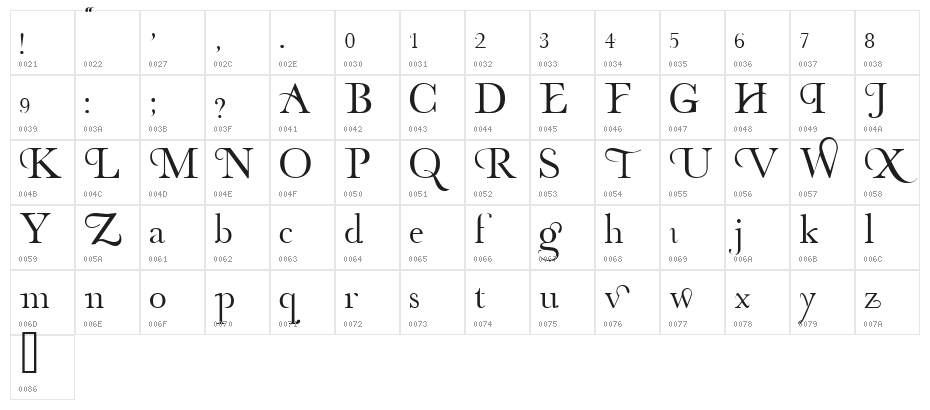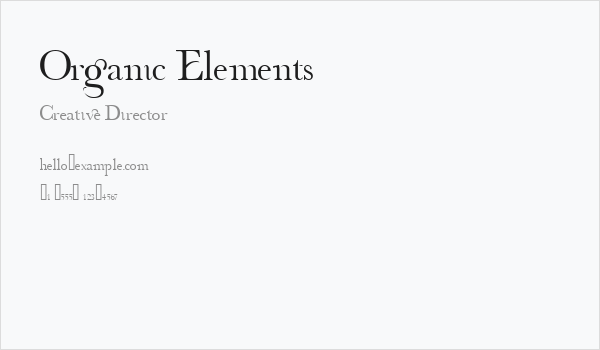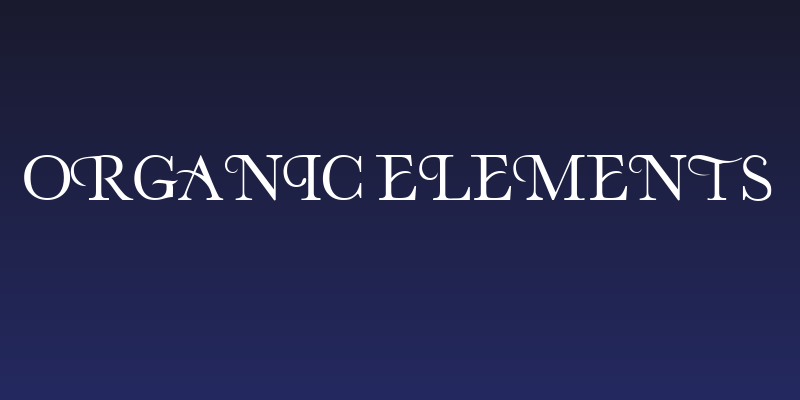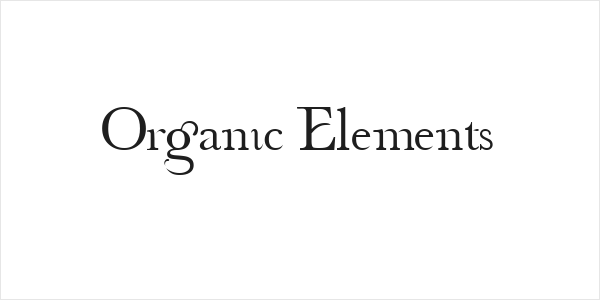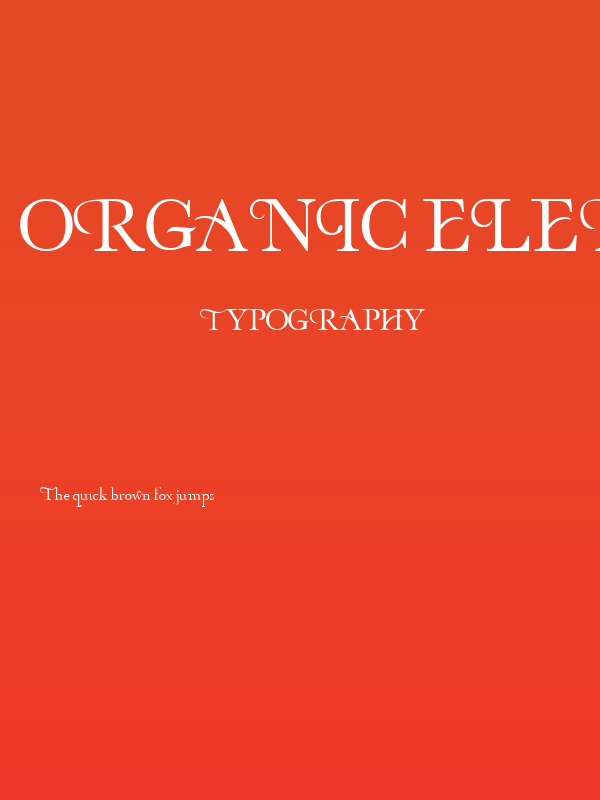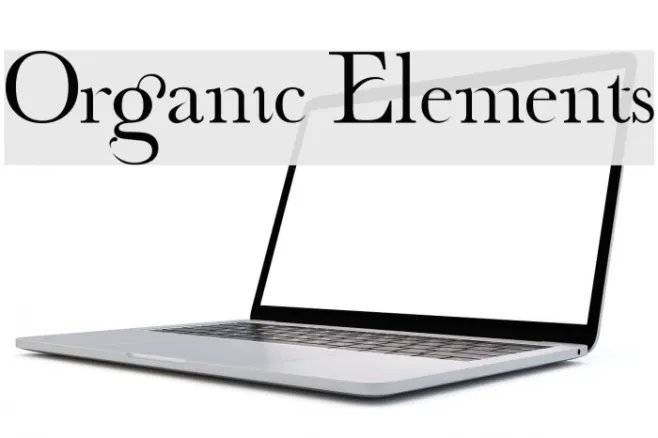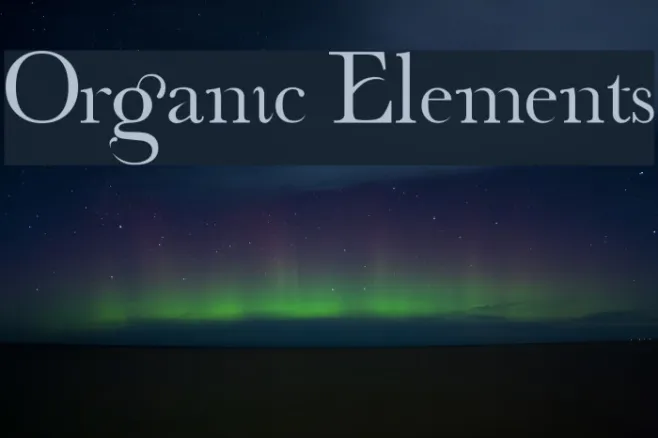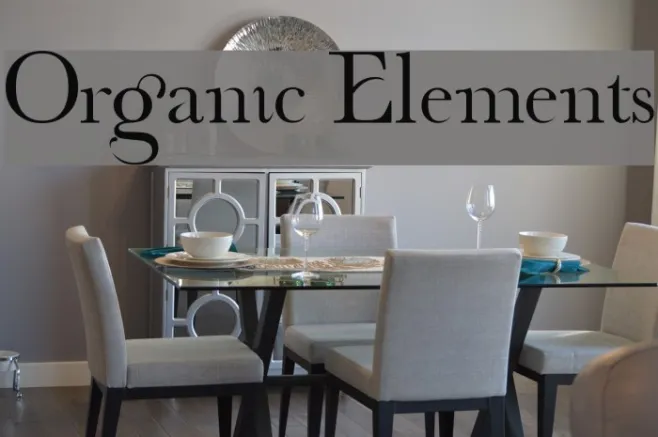
Organic Elements Font
Organic Elements Description
This font features a distinctive blend of elegance and modernity, characterized by its unique organic elements. The uppercase letters exhibit a classic serif style with subtle curves and flares, giving them a sophisticated appearance. The lowercase letters maintain a harmonious flow, with some characters displaying playful loops and swashes that add a touch of whimsy. The numerals are clear and balanced, ensuring readability. Special characters are thoughtfully designed, complementing the overall aesthetic. This font's intricate details and stylish flair make it suitable for a variety of creative applications.
| Proposed Projects | Ideal for branding, editorial design, invitations, and artistic projects. |